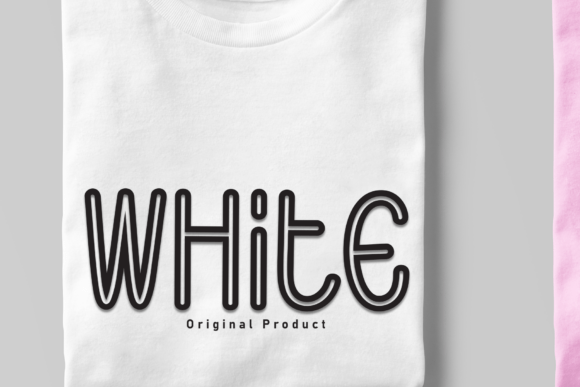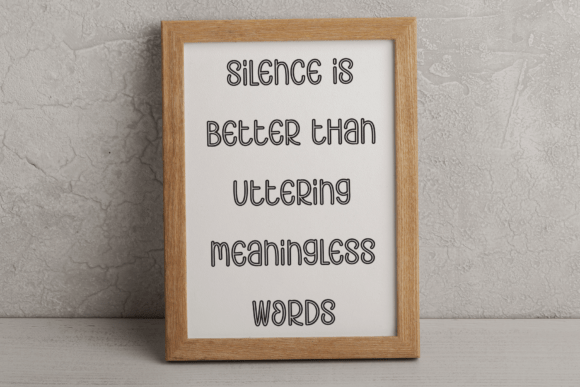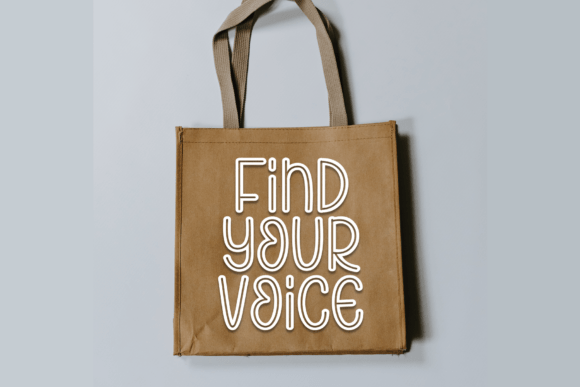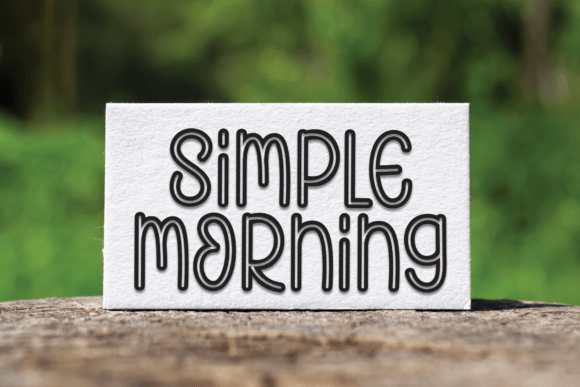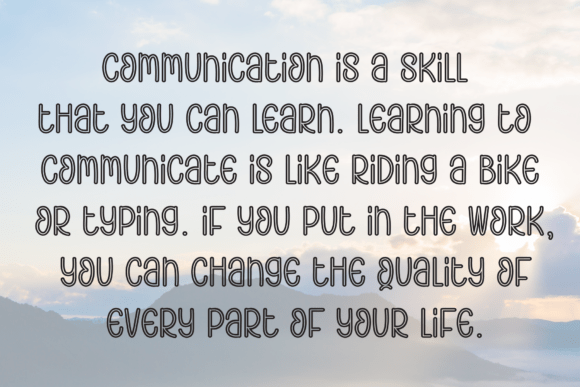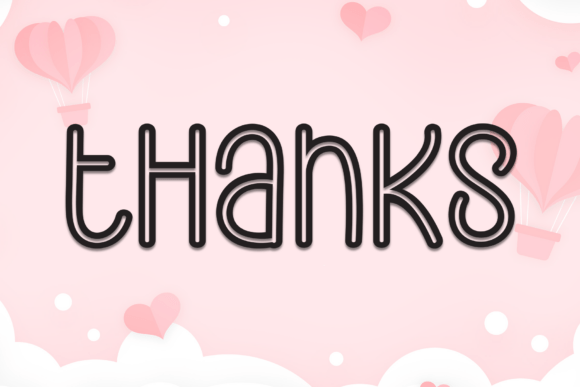
Introducing Happy Valentine Font: The Perfect Choice for Your Design Needs
Are you looking for a font that exudes sweet simplicity and friendliness? Do you want to add a touch of joy and playfulness to your designs? Look no further than Happy Valentine Font, a charming handwritten display font that’s perfect for crafting wedding invitations, heartfelt notes, memorable cards, and more.
The Charm of Happy Valentine Font
Happy Valentine Font is a beautifully designed font that’s sure to capture the hearts of designers and crafters alike. Its endearing and handwritten style makes it an ideal choice for anyone looking to add a personal touch to their designs. The font’s sweet simplicity and friendliness make it perfect for creating designs that are both fun and playful.
Exquisitely Fun and Playfully Cute
Happy Valentine Font is not just a font, it’s an experience. Its exquisitely fun and playfully cute design makes it perfect for crafting designs that are both memorable and enjoyable. Whether you’re creating wedding invitations, birthday cards, or simply want to add a touch of joy to your designs, Happy Valentine Font is the perfect choice.
Perfect for Wedding Invitations and More
Happy Valentine Font is a popular choice among designers and crafters for creating beautiful wedding invitations, heartfelt notes, and memorable cards. Its elegant and sophisticated design makes it perfect for formal events, while its playful and fun style makes it ideal for casual designs.
Transform Your Creativity into a Captivating Visual Experience
Happy Valentine Font is not just a font, it’s a tool to transform your creativity into a captivating and enjoyable visual experience. With its unique and charming design, you can create stunning designs that are sure to capture the hearts of your audience. Whether you’re a designer, crafter, or simply someone who loves to create, Happy Valentine Font is the perfect choice for you.
Why Choose Happy Valentine Font?
- Sweet Simplicity: Happy Valentine Font exudes sweet simplicity and friendliness, making it perfect for creating designs that are both fun and playful.
- Playfully Cute: The font’s playfully cute design makes it perfect for crafting designs that are both memorable and enjoyable.
- Perfect for Wedding Invitations: Happy Valentine Font is a popular choice among designers and crafters for creating beautiful wedding invitations, heartfelt notes, and memorable cards.
- Transforms Your Creativity: Happy Valentine Font is not just a font, it’s a tool to transform your creativity into a captivating and enjoyable visual experience.
How to Use Happy Valentine Font
- Pair it with Other Fonts: Happy Valentine Font pairs well with other fonts, so feel free to experiment and find the perfect combination for your design.
- Use it for Headings: The font’s bold and playful design makes it perfect for headings and titles.
- Add a Personal Touch: Happy Valentine Font is perfect for adding a personal touch to your designs, so don’t be afraid to get creative and make it your own.
Happy Valentine Font is a charming handwritten display font that’s perfect for designers and crafters who want to add a touch of joy and playfulness to their designs. Its sweet simplicity, friendliness, and playfully cute design make it an ideal choice for crafting wedding invitations, heartfelt notes, memorable cards, and more. With Happy Valentine Font, you can transform your creativity into a captivating and enjoyable visual experience.